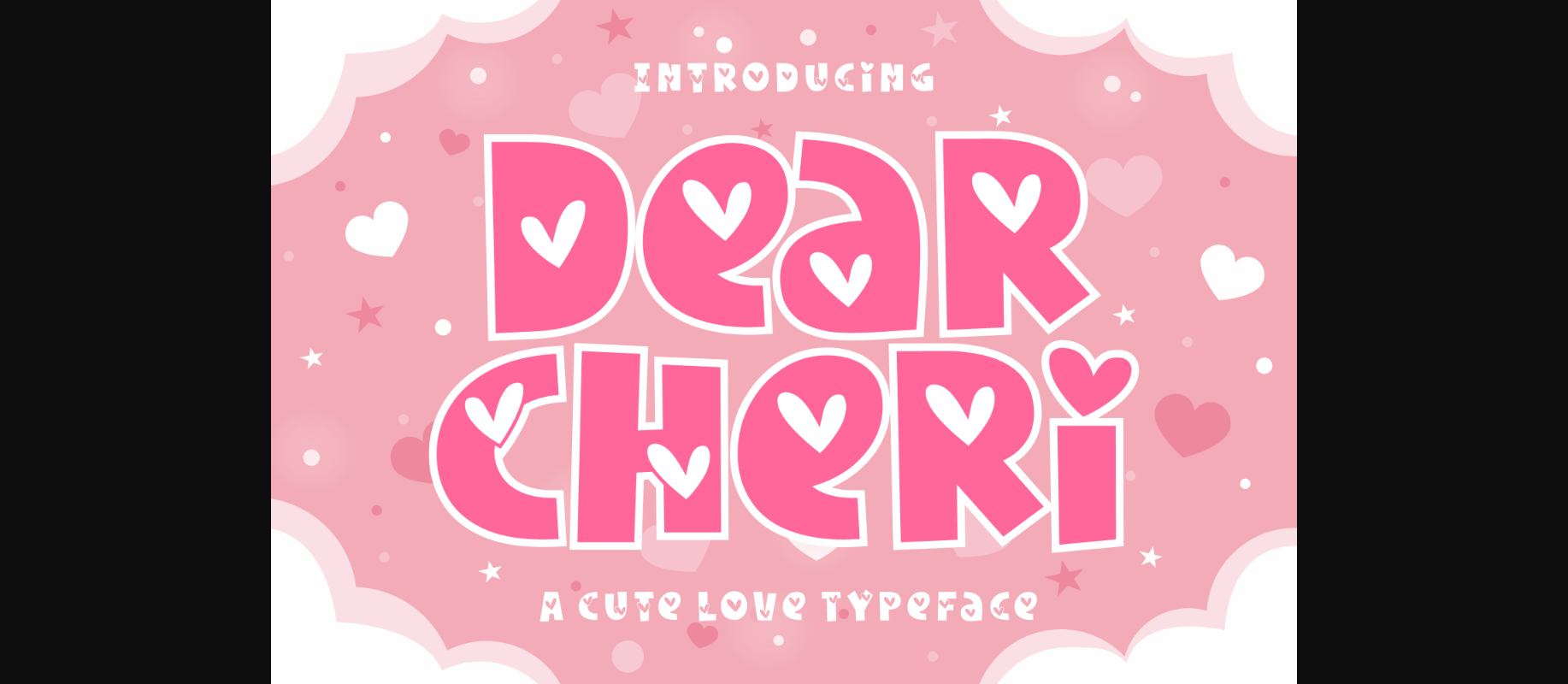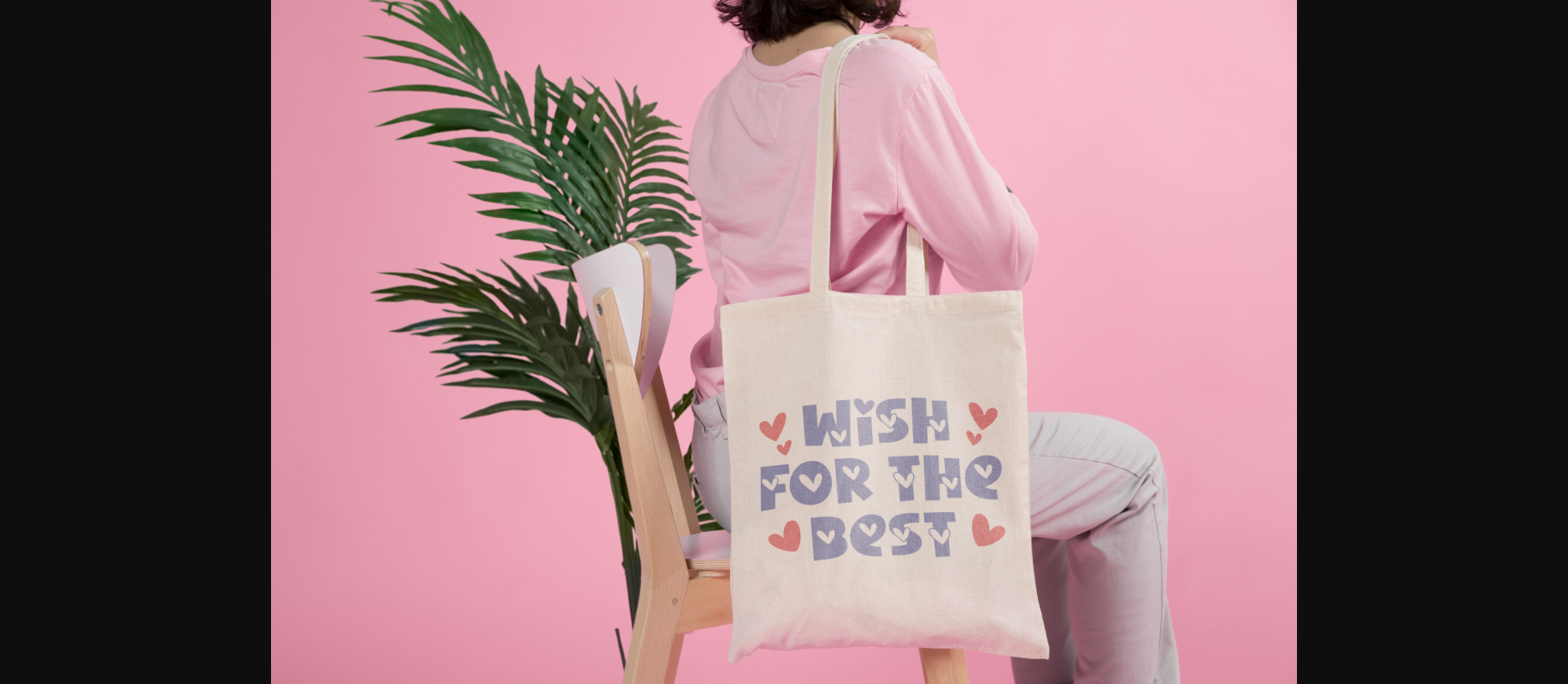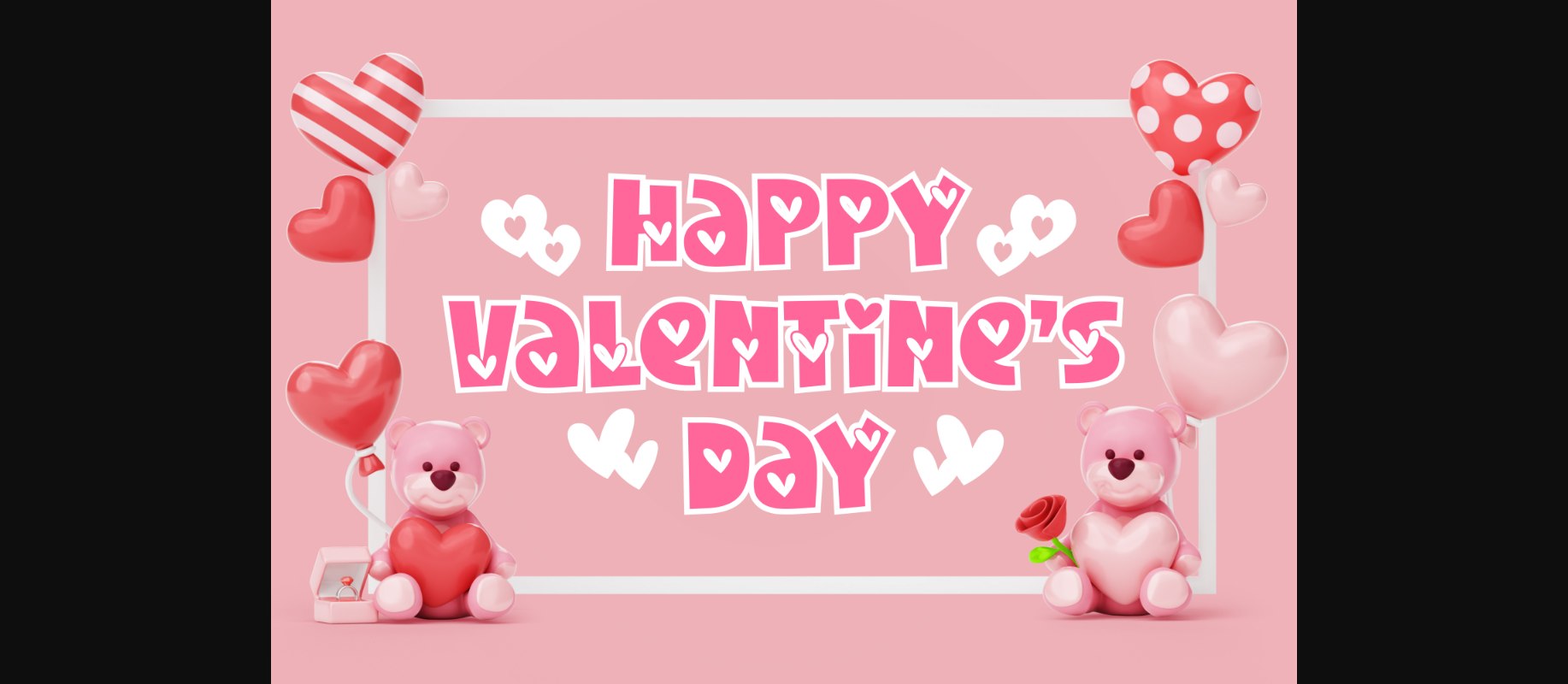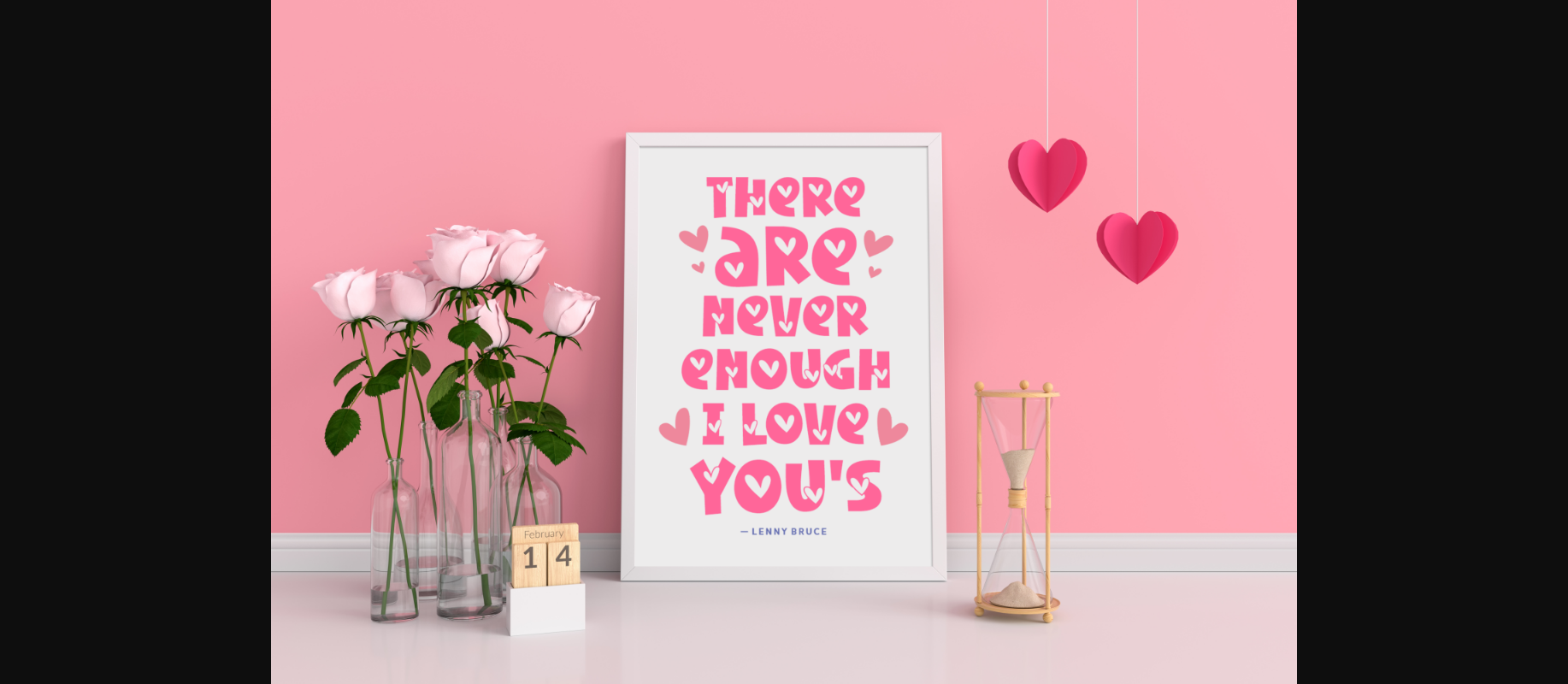
Dear Cheri Font
About Dear Cheri Font
Discover “Dear Cheri”, a splendidly special typeface suffused with the allure of affection and romance. The remarkable aura of this love-inspired font mirrors the jovial atmosphere of Valentine’s Day, accompanied by the inviting echo of wedding bells, making it a premier choice for creating heartfelt love messages. A pleasing palette of chic and whimsy, “Dear Cheri” seamlessly serves equally as a delightful embellishment, radiating a playful and feminine ambiance that enhances greeting cards or school crafts. This artfully patterned, versatile typeface accommodates various design demands, from fashioning stylish branding identities and logotypes, to designing fashionable attire or creating captivation book covers. With its lively text and captivating design, “Dear Cheri” enhances craft projects, magazines, posters, promotional collateral, or t-shirts in a sophisticated manner. As a multilingual and adaptable font conceptualized by 7ntypes, it’s certain to equip you to undertake a captivating typography journey, irrespective of the time of year. Without a doubt, including this heart-embracing typeface in your design arsenal will fan the flames of creativity. Revel in the vitality of “Dear Cheri”, the font that seamlessly articulates elegance, fun, love, and beyond.